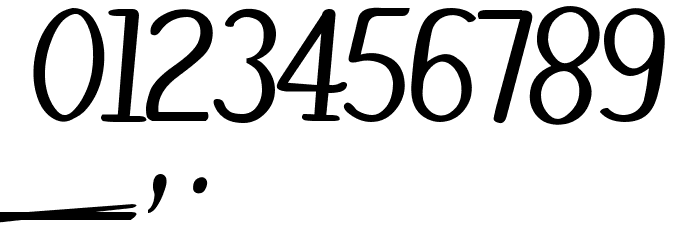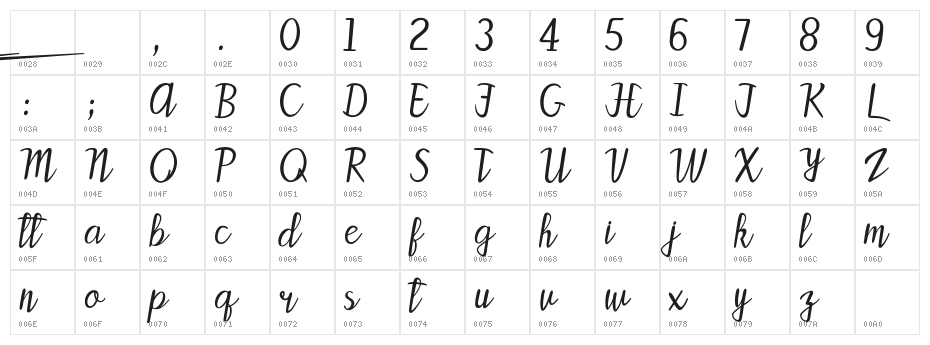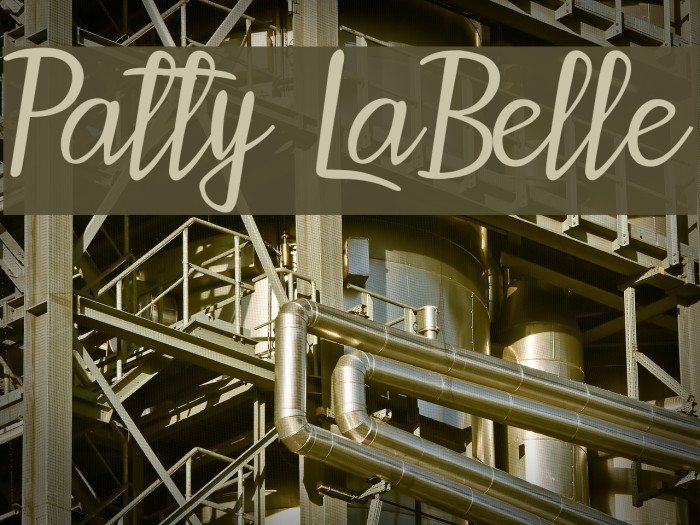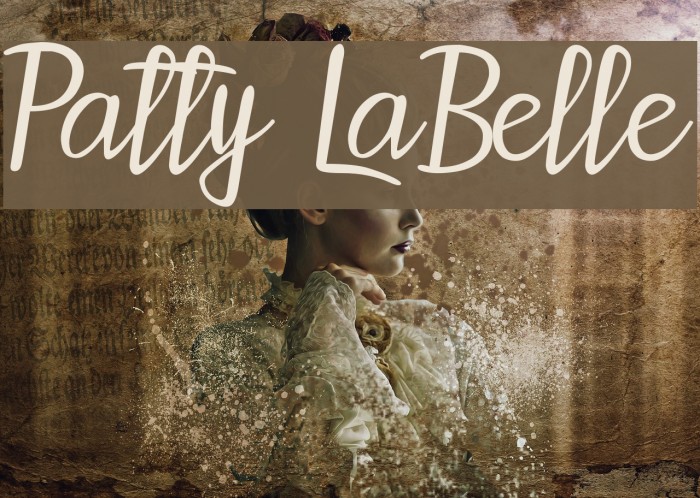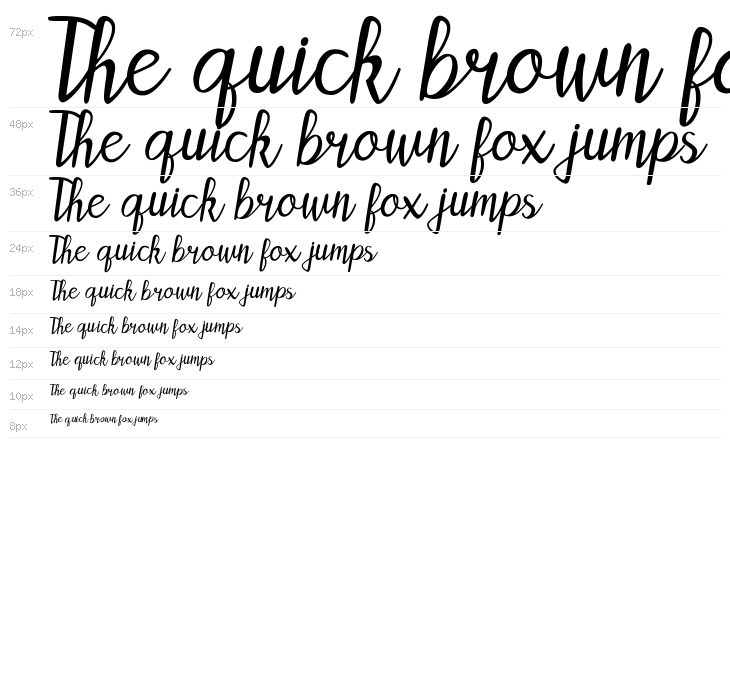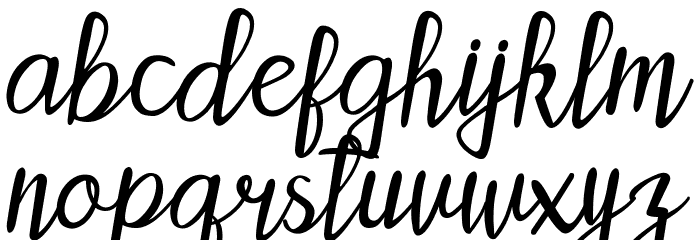
Patty LaBelle Font
Patty LaBelle Description
This font features a lively and flowing script style, characterized by its elegant and cursive letterforms. The uppercase letters are tall and slightly slanted, giving a sense of movement and grace. The lowercase letters maintain a consistent flow, with smooth connections between each character, enhancing the script's fluidity. The numerals are bold and clear, maintaining the overall script aesthetic. Special characters are designed to complement the letterforms, ensuring a cohesive look across all text. This font is perfect for adding a personal and stylish touch to any design.
Jaime Rangel Castro
| Proposed Projects | Ideal for wedding invitations, greeting cards, branding, and elegant packaging. |